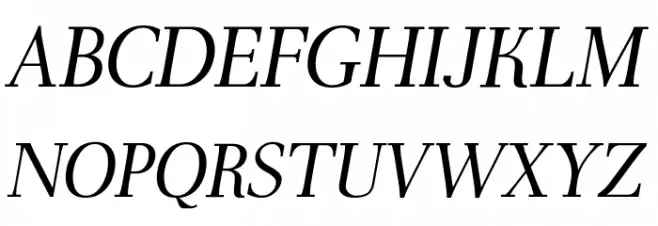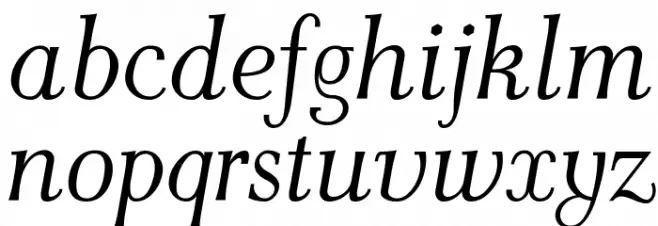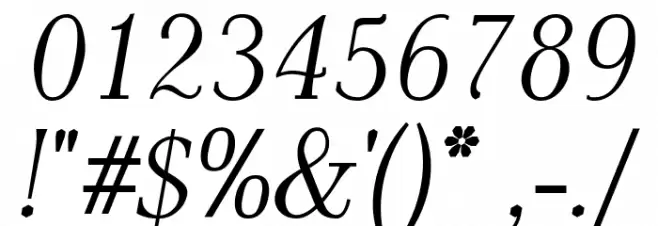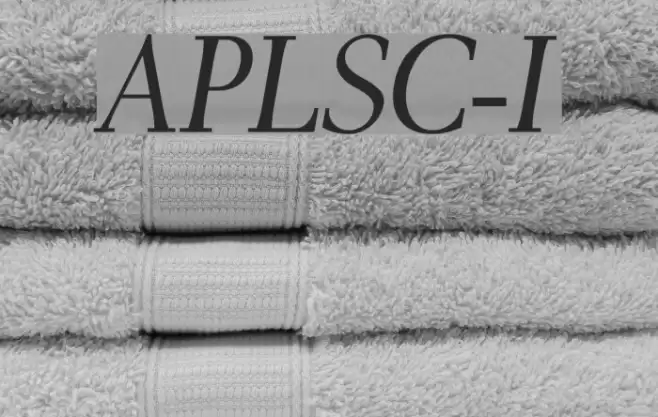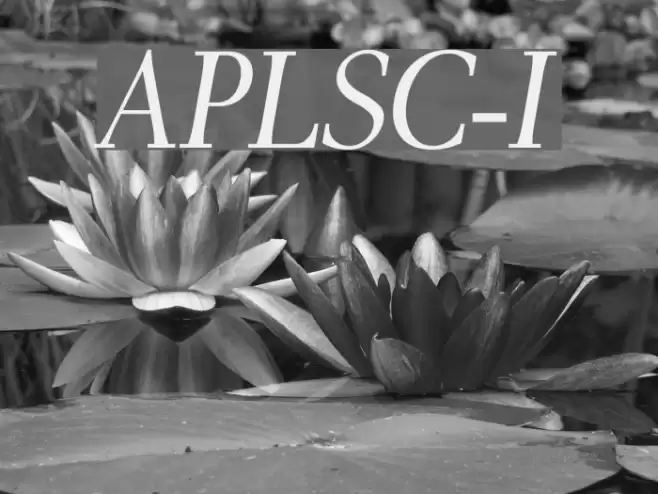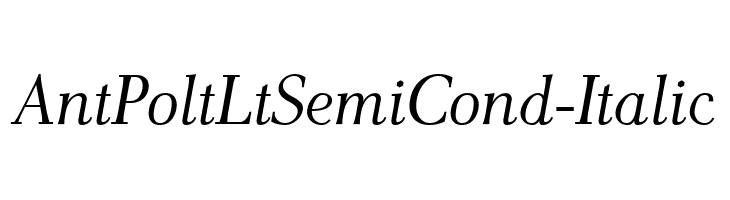
AntPoltLtSemiCond-Italic
This font features a classic serif style with elegant, flowing lines and a slight slant, giving it an italic appearance. The characters are semi-condensed, allowing for a compact yet readable text. The uppercase letters are tall and stately, while the lowercase letters maintain a consistent rhythm with smooth curves and sharp serifs. The numerals are proportional, aligning well with the overall design. Special characters are crafted with the same attention to detail, ensuring a cohesive look across all glyphs. The font's refined aesthetic makes it suitable for formal and sophisticated applications.
A classic serif font with an elegant italic style and semi-condensed spacing.
- Proposed Projects: Ideal for use in editorial design, book covers, formal invitations, and branding materials that require a touch of sophistication.
- Category: Serif
- Weight: Light
- Width: Condensed
- Character Spacing: Tight
- Overall Style: Classic